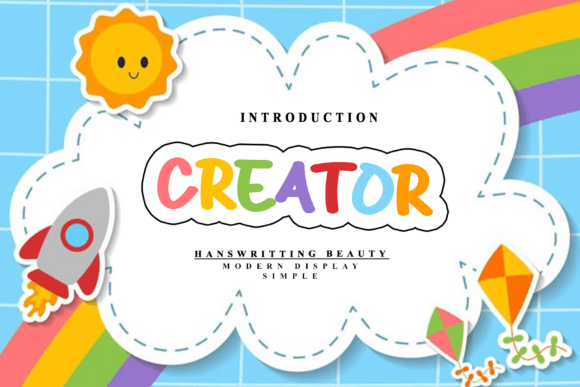
Introducing Creator Font: Unleash Imagination and Fun in Your Designs!
Are you looking for a font that can add a burst of creativity and excitement to your designs? Look no further than Creator Font, a colorful and joyful handwritten display font that is sure to spark imagination and fun! With its playful, kid-friendly style and vibrant aesthetic, this font is perfect for a wide range of projects, from children’s materials to craft designs and educational resources.
A Font that Appeals to All Ages
Creator Font boasts a casual, hand-drawn charm that gives it a warm and approachable look, making it appealing to both kids and adults. Its playful style is reminiscent of a child’s scribbles, yet it retains a level of sophistication that makes it suitable for a variety of applications. Whether you’re designing storybooks, classroom posters, birthday cards, or activity sheets, Creator Font is sure to add an instant sense of excitement and wonder to your designs.
Perfect for Children’s Projects and Educational Materials
Creator Font is particularly well-suited for children’s projects and educational materials. Its kid-friendly style and vibrant aesthetic make it perfect for:
- Storybooks and children’s books
- Classroom posters and educational materials
- Activity sheets and worksheets
- Children’s party invitations and decorations
- Educational games and puzzles
Ideal for Craft Designs and DIY Projects
In addition to its use in children’s projects and educational materials, Creator Font is also ideal for craft designs and DIY projects. Its playful style and vibrant aesthetic make it perfect for:
- Craft tutorials and patterns
- DIY project instructions and guides
- Handmade product labels and packaging
- Blog posts and social media graphics
Tips for Using Creator Font
To get the most out of Creator Font, here are a few tips:
- Pair it with illustrations: Creator Font pairs perfectly with illustrations, making it ideal for storybooks, children’s books, and educational materials.
- Combine it with bold colors: The font’s playful style and vibrant aesthetic can be enhanced by combining it with bold colors and bright patterns.
- Use it with rainbows and whimsical elements: Creator Font is perfect for designs that feature rainbows, clouds, and other whimsical elements.
Key Features of Creator Font
Here are some of the key features that make Creator Font so special:
- Handwritten display font with a playful, kid-friendly style
- Vibrant aesthetic with a casual, hand-drawn charm
- Perfect for children’s projects, educational materials, craft designs, and DIY projects
- Appeals to both kids and adults
- Instantly adds an sense of excitement and wonder to any design
In conclusion, Creator Font is a unique and versatile font that is perfect for designers and crafters looking to add a burst of creativity and excitement to their designs. With its playful, kid-friendly style and vibrant aesthetic, this font is sure to spark imagination and fun in any project. Whether you’re designing children’s materials, educational resources, craft designs, or DIY projects, Creator Font is the perfect choice.